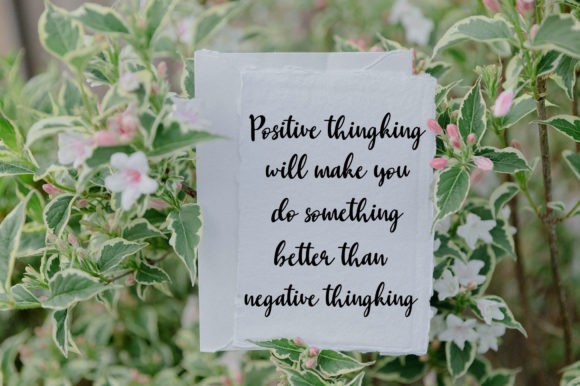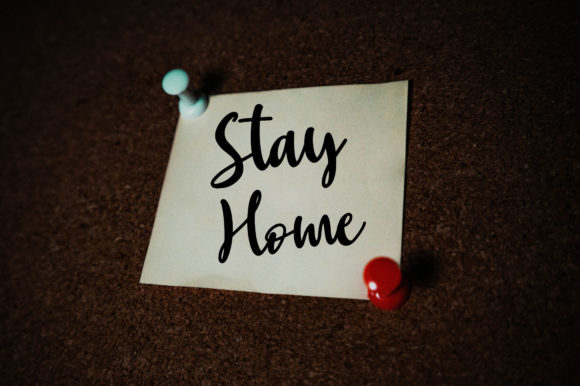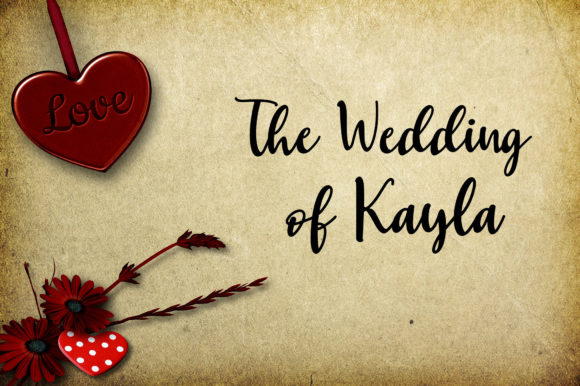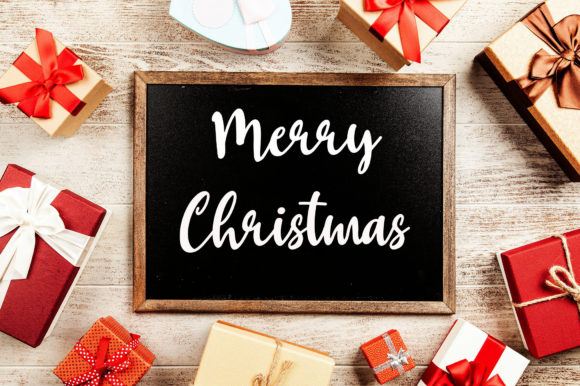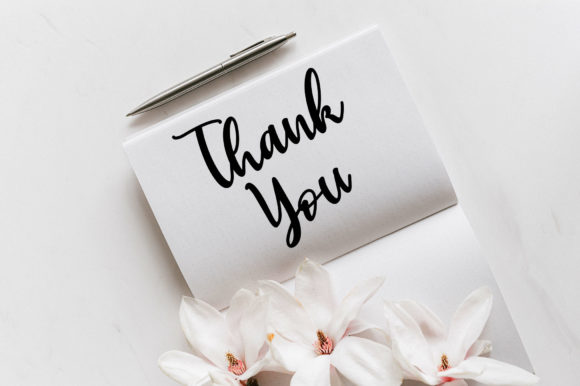
Discover the Charm of Authentic Font: Elevate Your Designs with a Timeless Handwritten Touch
In the world of typography, few fonts manage to capture the essence of elegance and charm as effortlessly as the Authentic font. This lovely and timeless handwritten font has been making waves among designers and crafters alike, and for good reason. Its unique blend of sophistication and playfulness makes it the perfect choice for creating eye-catching logos, branding materials, and quotes that stand out from the crowd.
Handwritten fonts have a special place in the hearts of designers. They evoke a sense of warmth, personality, and human touch that is often lost in more traditional typefaces. The Authentic font takes this concept to the next level, with every letter boasting a unique and beautiful touch that adds a level of depth and character to any design.
Whether you’re working on a logo, a branding project, or a simple quote, the Authentic font is sure to bring your design to life. Its flowing lines and delicate curves create a sense of movement and energy, drawing the viewer’s eye and holding their attention.
What Makes Authentic Font So Special?
So, what sets the Authentic font apart from other handwritten fonts on the market? Here are just a few of its standout features:
- Unique Character: Every letter in the Authentic font has been carefully crafted to have its own distinct personality. From the elegant swashes to the playful flourishes, each character is a work of art in its own right.
- Timeless Appeal: Unlike trendy fonts that come and go, the Authentic font has a timeless quality that ensures it will remain relevant for years to come. Its classic lines and sophisticated feel make it a versatile choice for a wide range of design projects.
- Ease of Use: Despite its intricate details, the Authentic font is surprisingly easy to use. Whether you’re a seasoned designer or a crafting novice, you’ll find that this font integrates seamlessly into your workflow.
Using Authentic Font in Your Designs
So, how can you make the most of the Authentic font in your designs? Here are a few ideas to get you started:
- Logos and Branding: The Authentic font is a natural fit for logos and branding materials. Its unique character and timeless appeal make it perfect for creating a memorable brand identity.
- Quotes and Posters: Add a touch of elegance to your quotes and posters with the Authentic font. Its flowing lines and delicate curves create a sense of drama and emphasis, drawing the viewer’s eye to the message.
- Stationery and Invitations: Give your stationery and invitations a personal touch with the Authentic font. Its handwritten feel creates a sense of warmth and intimacy, making it perfect for special occasions.
Tips for Working with Authentic Font
To get the most out of the Authentic font, here are a few tips to keep in mind:
- Experiment with Sizes: Don’t be afraid to experiment with different font sizes to find the perfect balance for your design. The Authentic font looks great in both large and small sizes.
- Play with Colors: The Authentic font is versatile enough to work with a wide range of colors. Try pairing it with bold, bright hues for a playful look or soft pastels for a more subtle effect.
- Mix and Match: Don’t be afraid to mix and match the Authentic font with other typefaces to create a unique look. Its handwritten feel pairs well with both serif and sans-serif fonts.
In conclusion, the Authentic font is a timeless and elegant choice for designers and crafters looking to add a touch of personality to their work. Its unique character, timeless appeal, and ease of use make it the perfect choice for a wide range of design projects. Whether you’re working on a logo, a branding project, or a simple quote, the Authentic font is sure to bring your design to life.